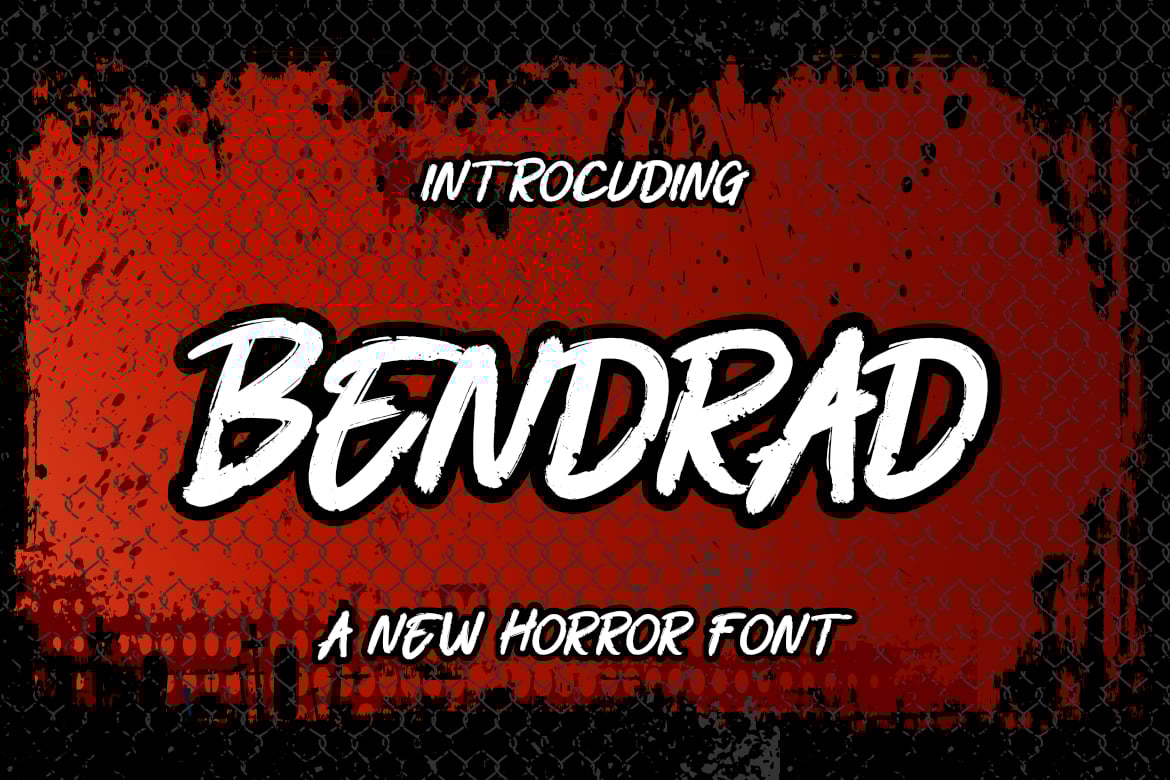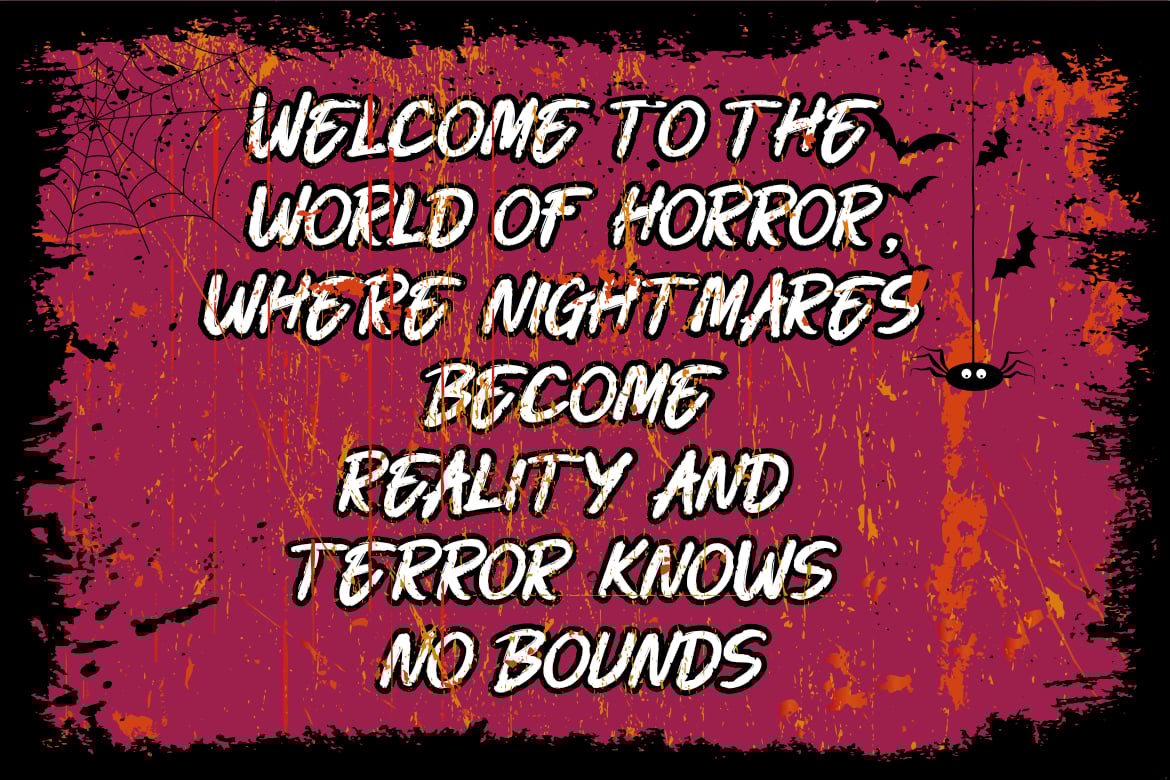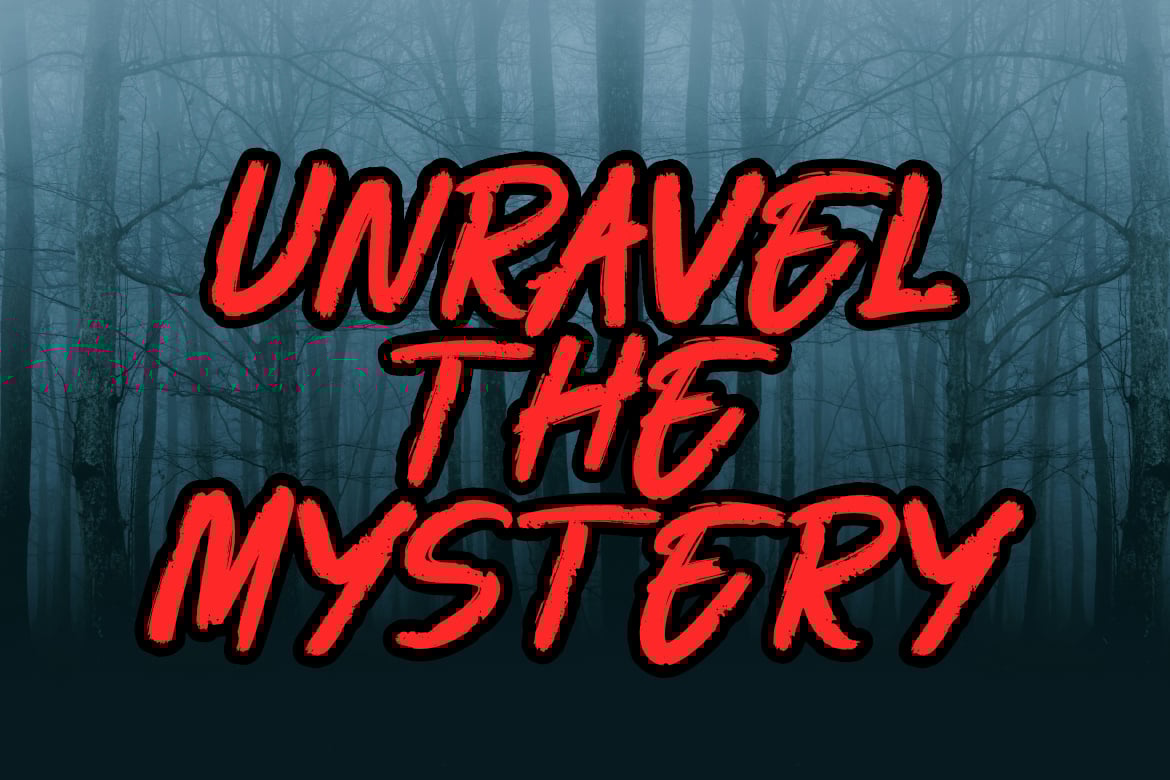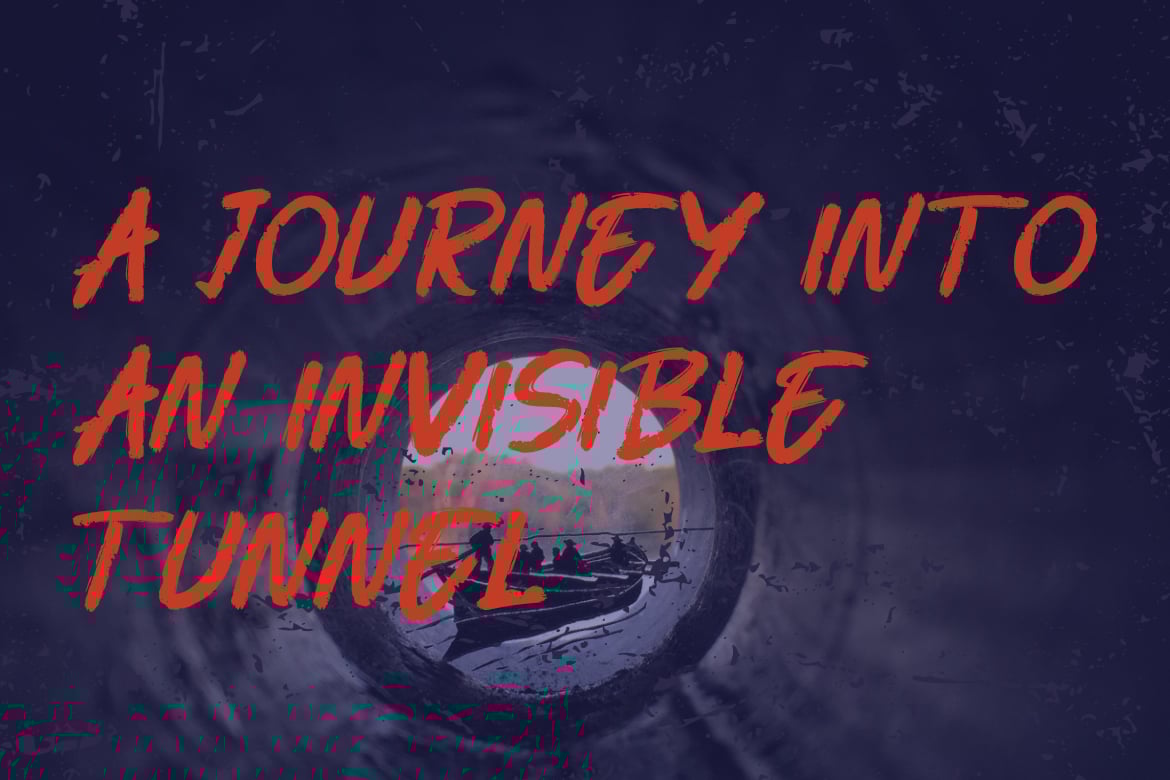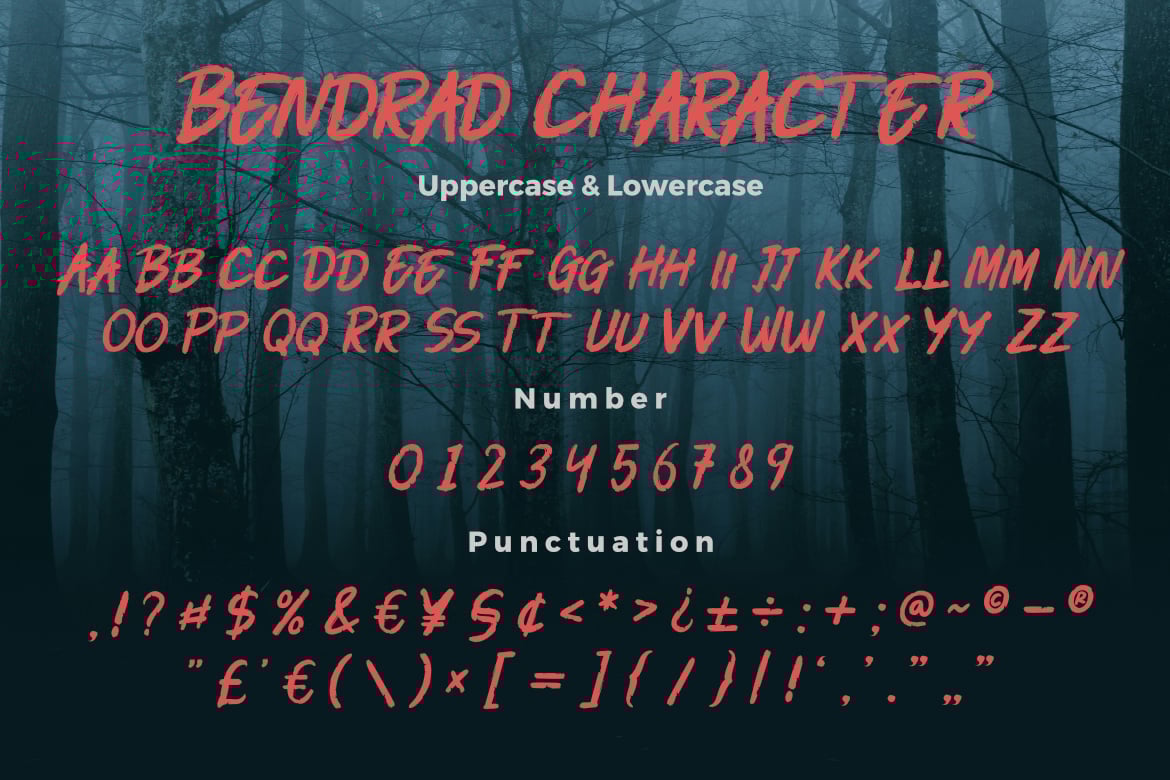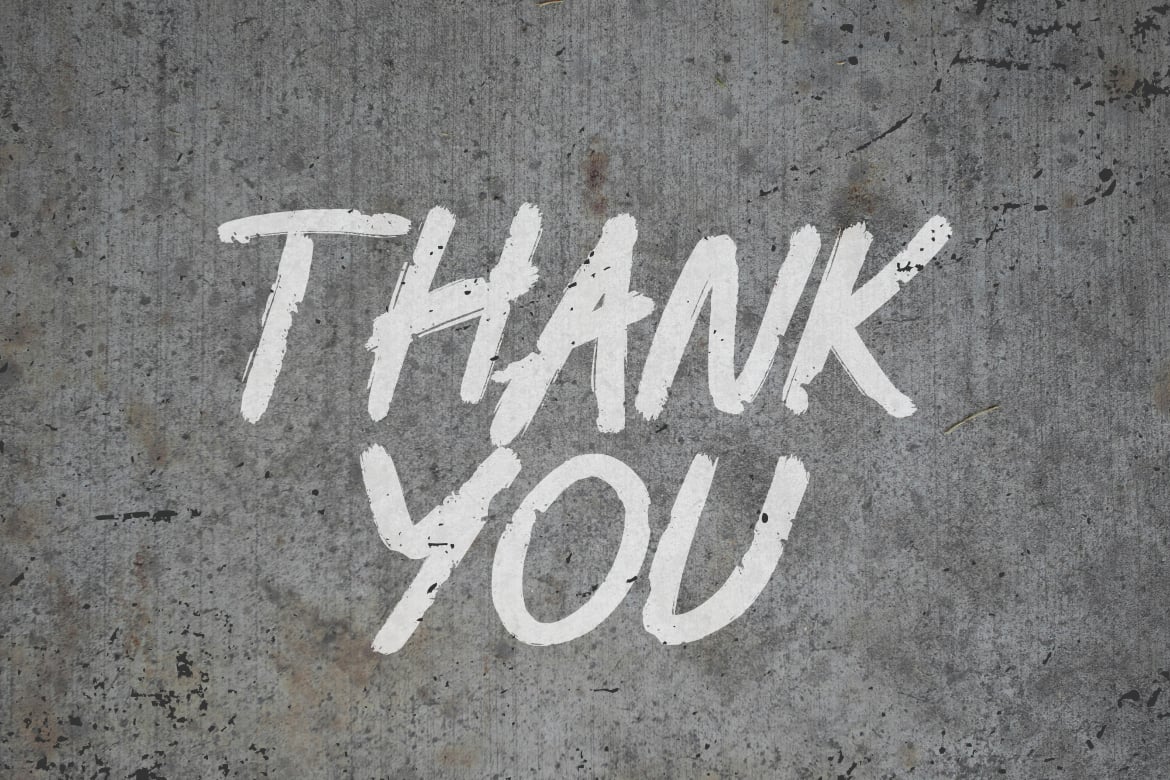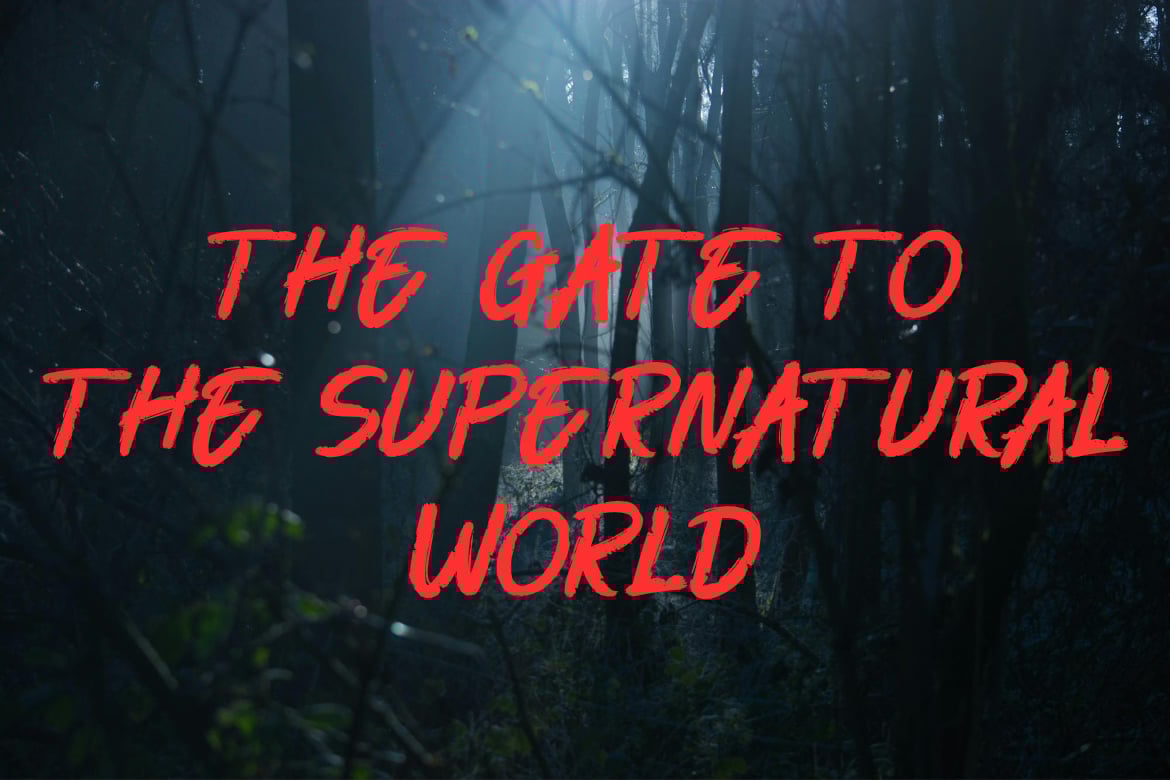
Bendrad a New Horror Font
Bendrad a New Horror Font, This font is made with a high premium quality level which you can use as flyers, quotes, posters, banners, packaging, merchandise, logotypes and much more.